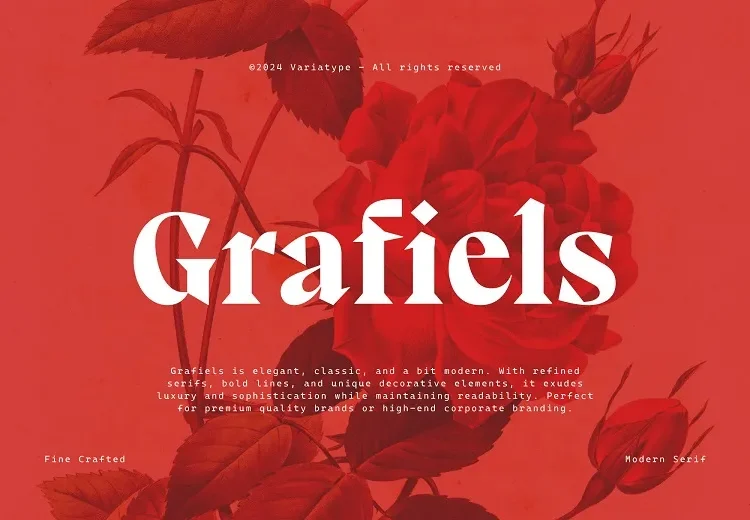
Grafiels Font
Grafiels is an elegant and classic serif typeface that blends traditional charm with a hint of modern sophistication. Designed with delicate serifs and strong, impactful strokes, Grafiels stands out for its refined aesthetic that balances timeless elegance with contemporary flair. Each character is meticulously crafted to offer a sense of luxury while ensuring readability, making it a versatile choice for various high-end applications.
The font’s classic design features subtle accents and well-defined lines, providing a premium look that is ideal for premium quality brands, corporate identities, and business logos. Whether you’re working on branding projects, creating sophisticated promotional materials, or designing elegant editorial layouts, Grafiels will elevate your designs with its refined presence and distinctive style.